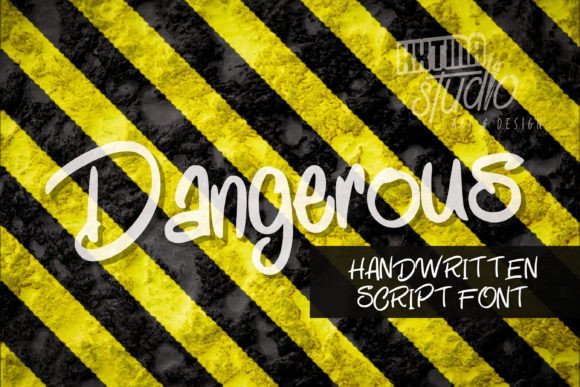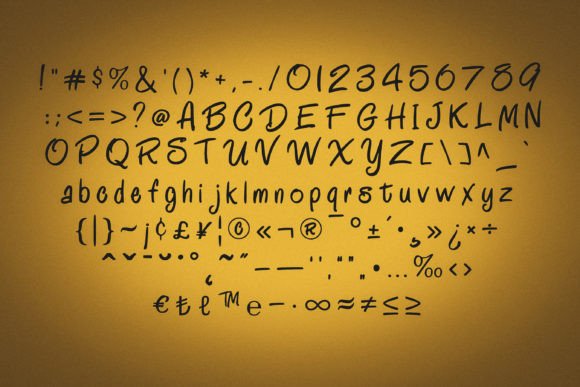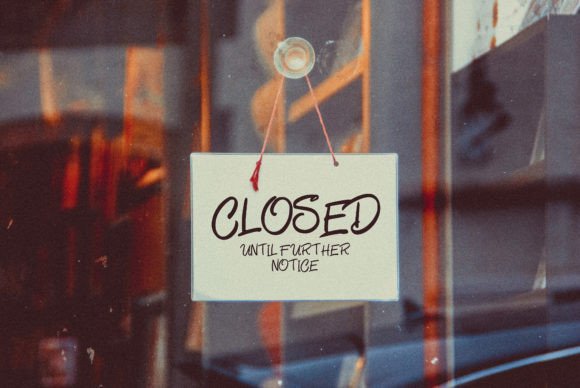
Dangerous Font
“Dangerous” is a fun and friendly handwritten font designed to add a lively and approachable touch to your projects. Whether you’re working on crafts, digital designs, presentations, or creating greeting cards, this font is crafted to become a versatile and favorite choice for various occasions.
The fun and friendly nature of “Dangerous” make it suitable for a range of design applications. Its handwritten style adds a personal and authentic feel, making it perfect for projects where a casual and approachable vibe is desired.
Whether you’re creating engaging social media posts, designing quirky invitations, or adding a playful touch to presentations, “Dangerous” has the potential to become your go-to font. Its versatility allows it to adapt to different themes and contexts, making it a valuable asset for designers seeking a font that brings a touch of fun to their creations.
In summary, “Dangerous” is a fun and friendly handwritten font that adds a lively and approachable element to your designs. Its versatility makes it suitable for a variety of occasions, making it a go-to choice for designers looking to infuse a playful and casual vibe into their creative projects.